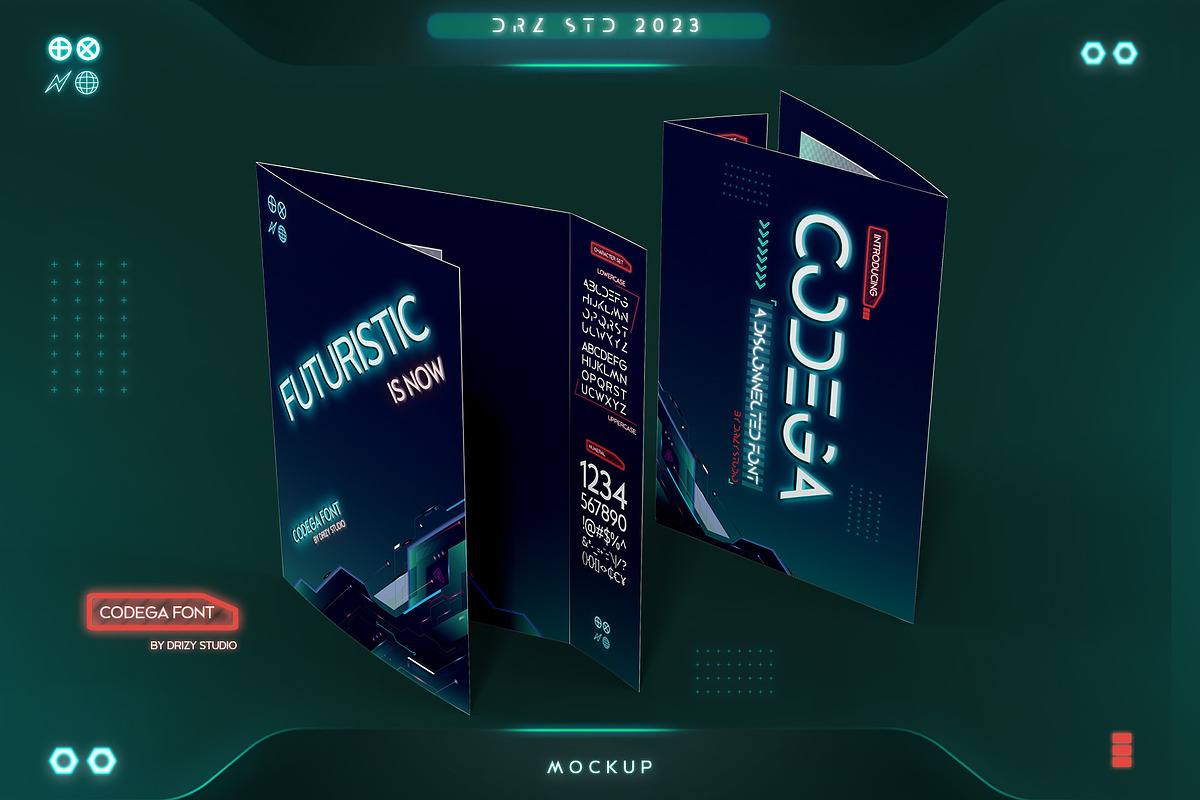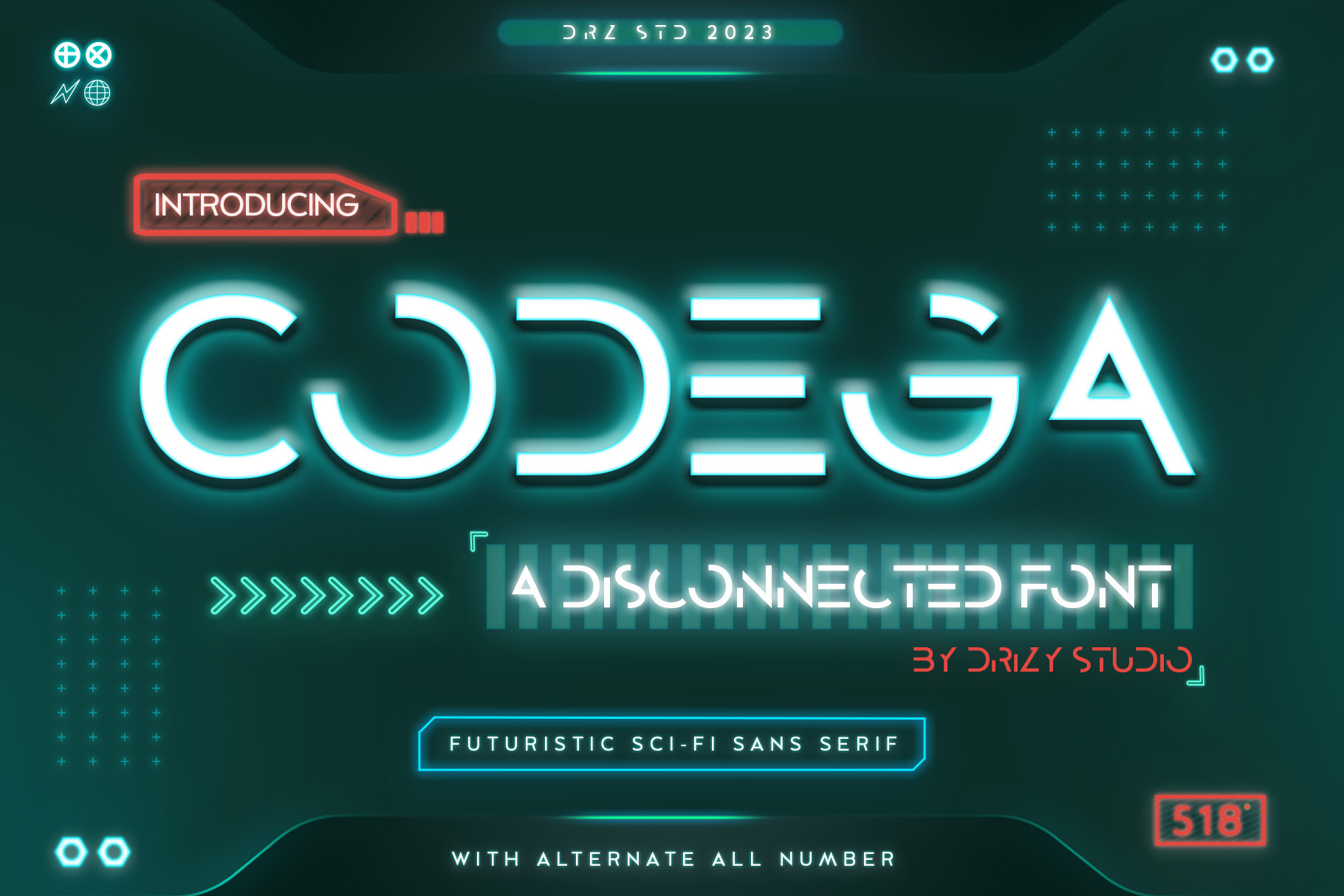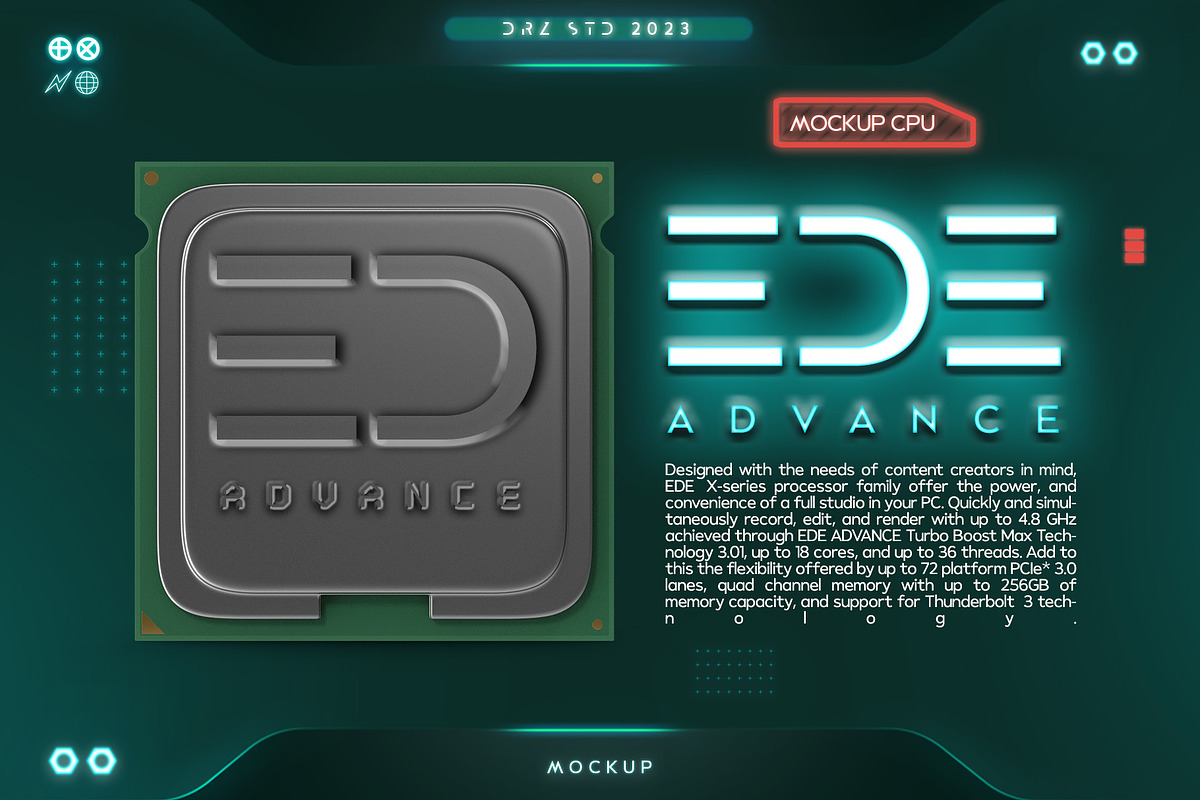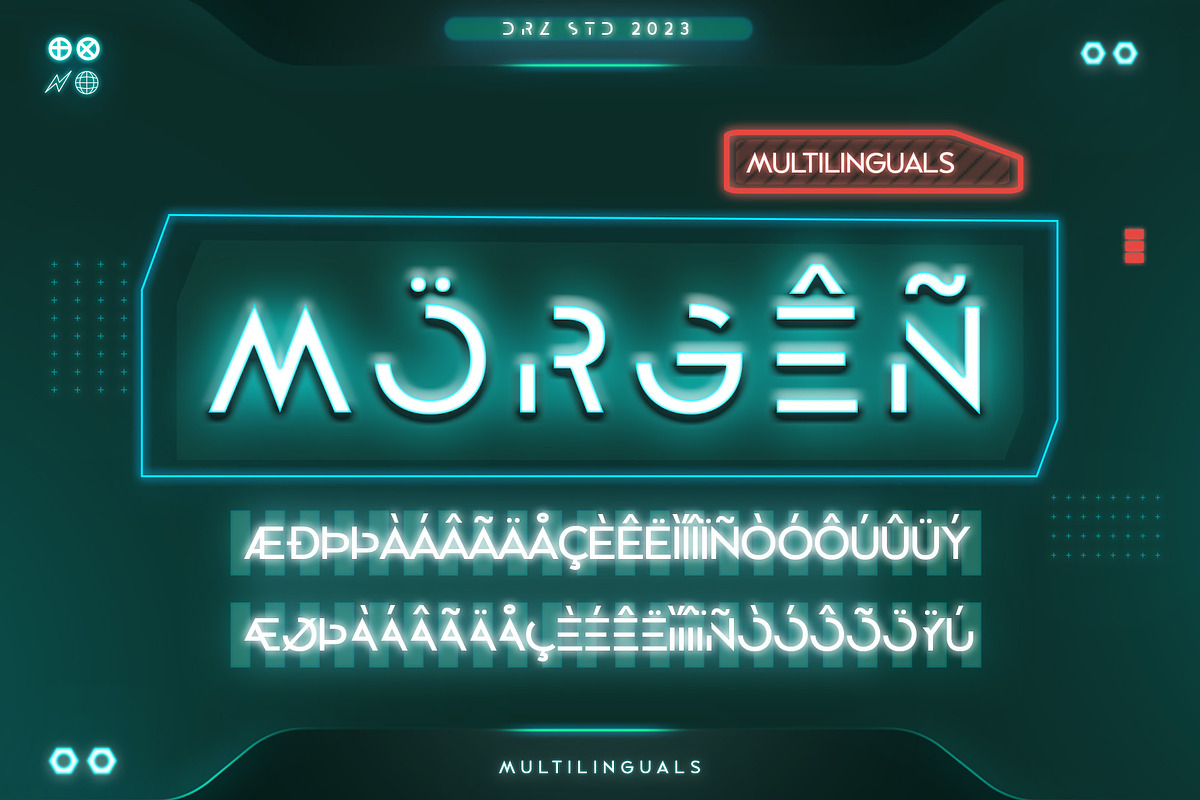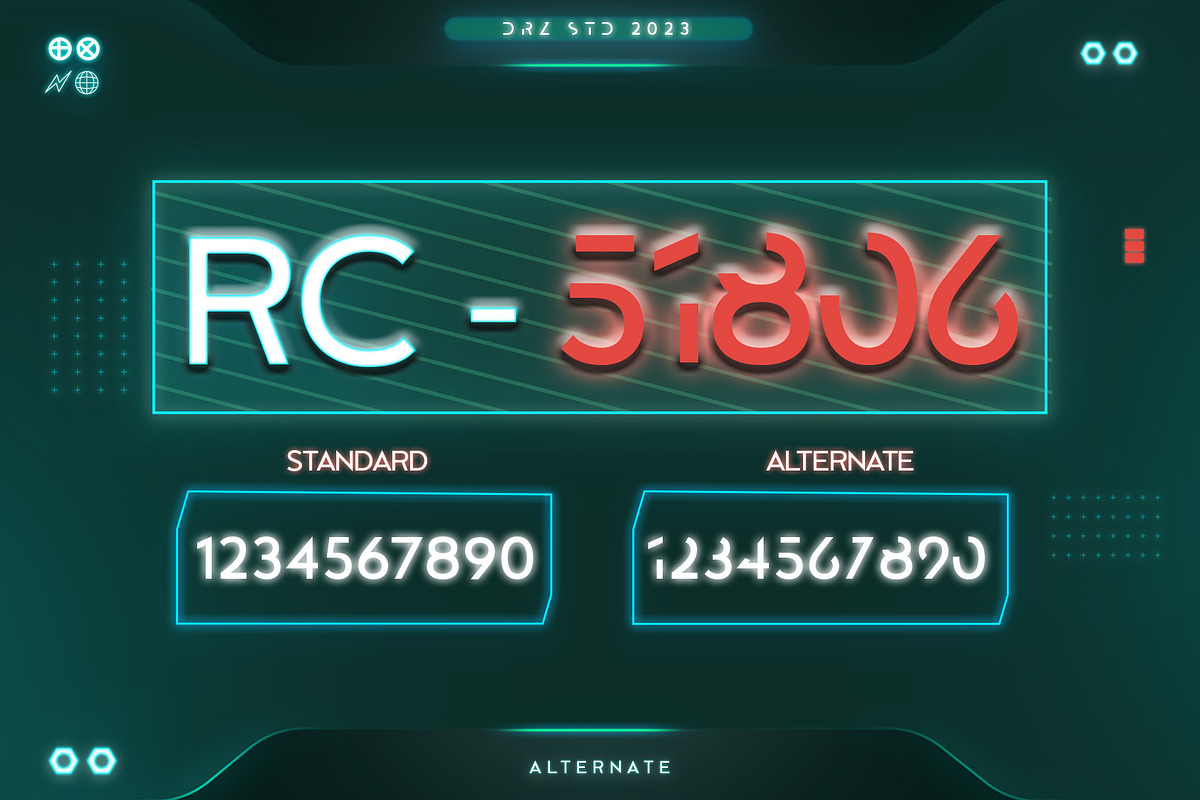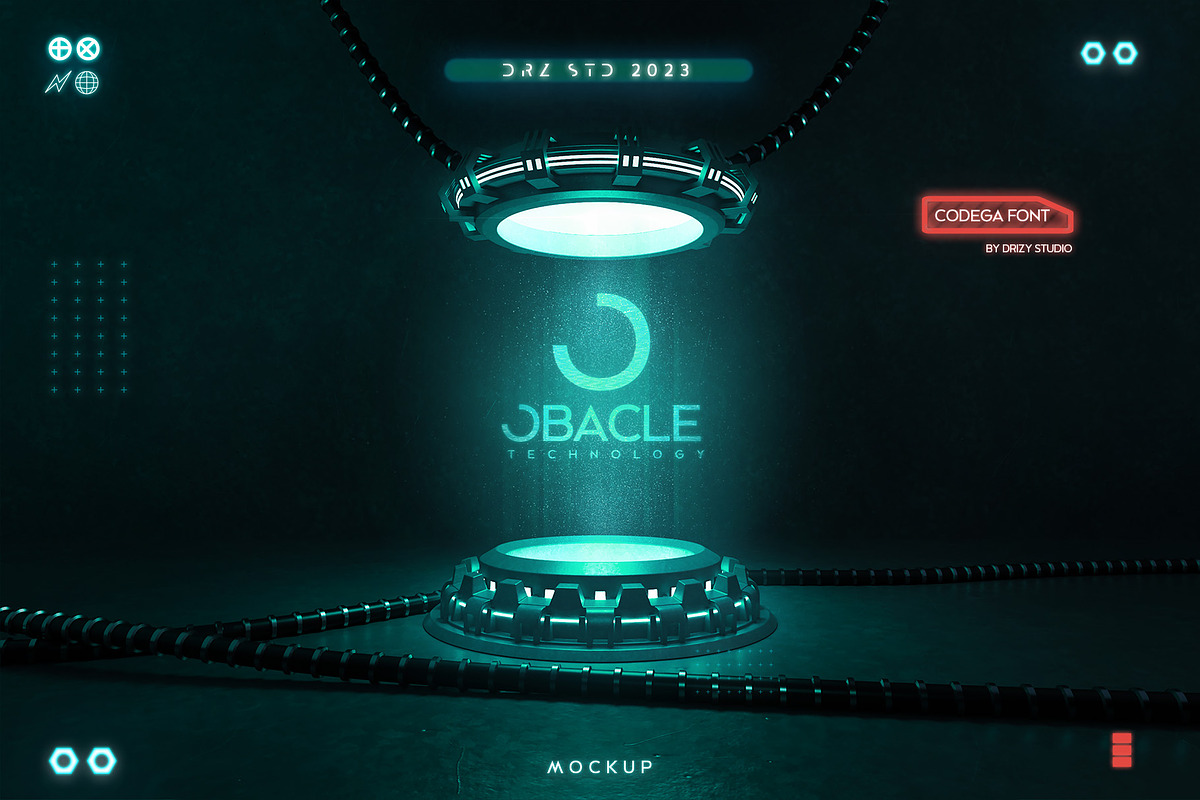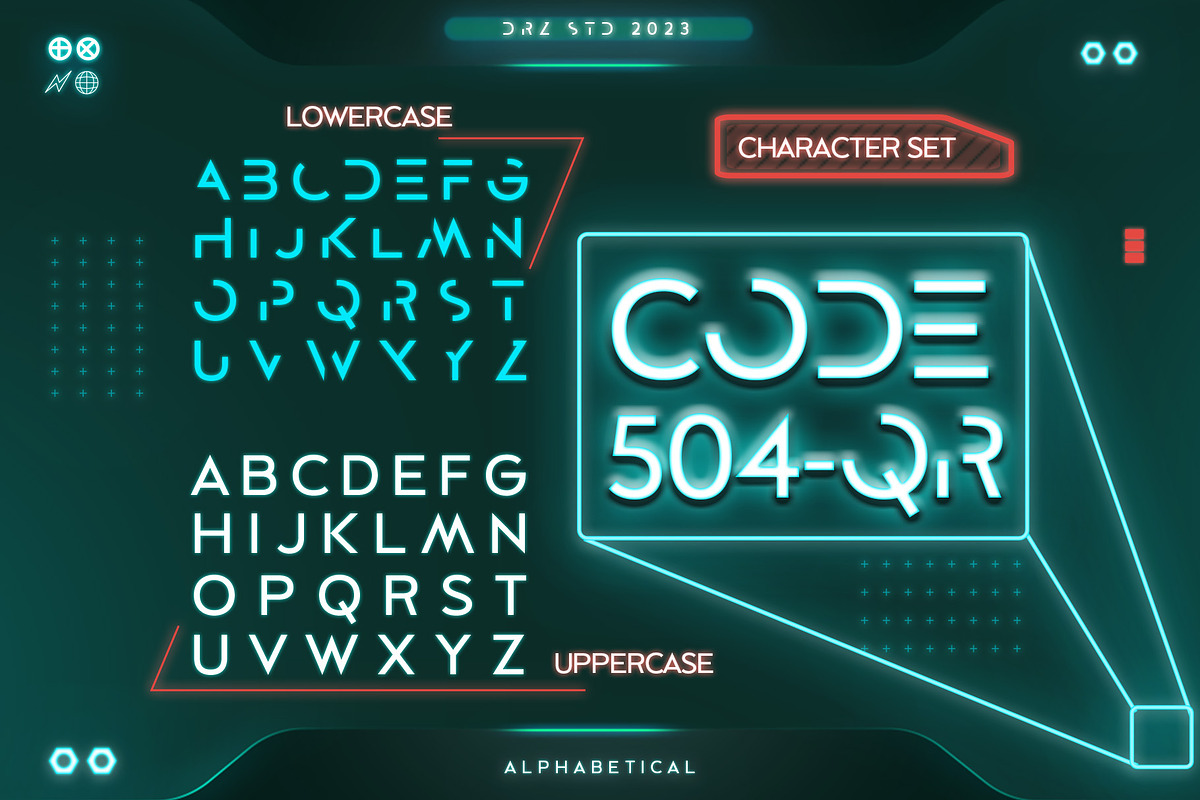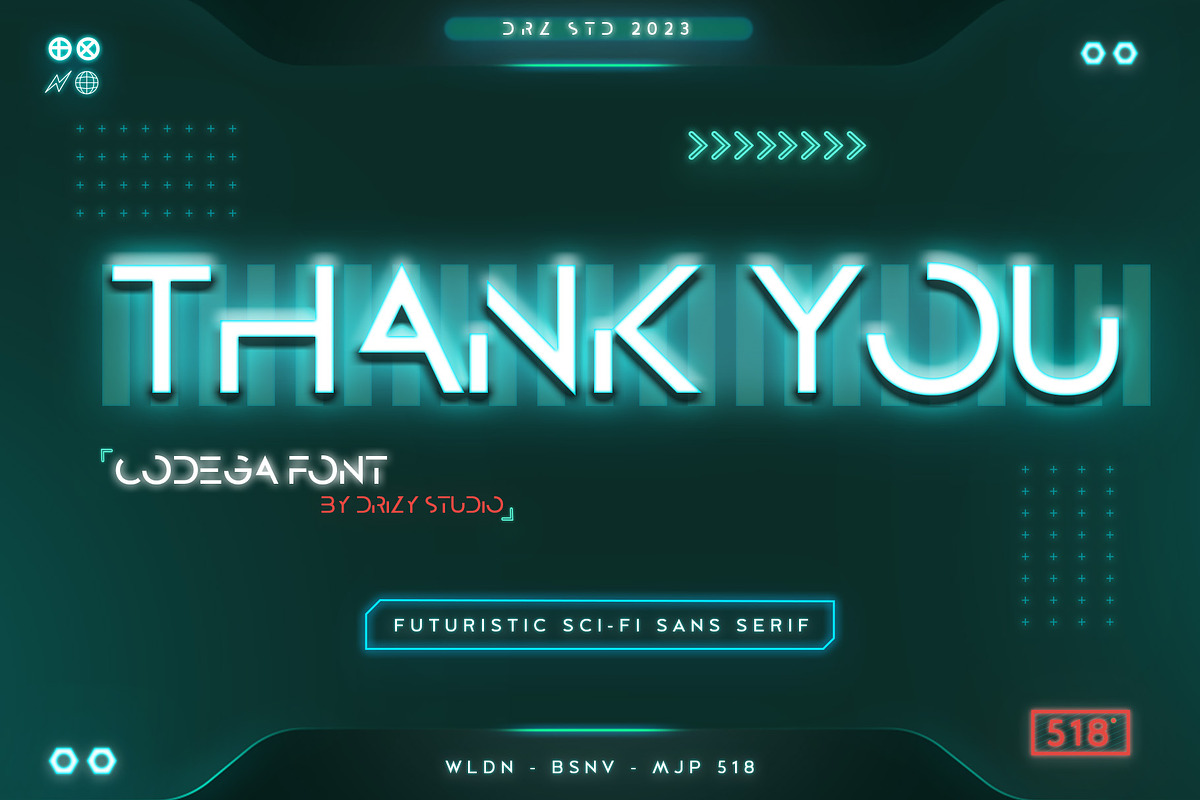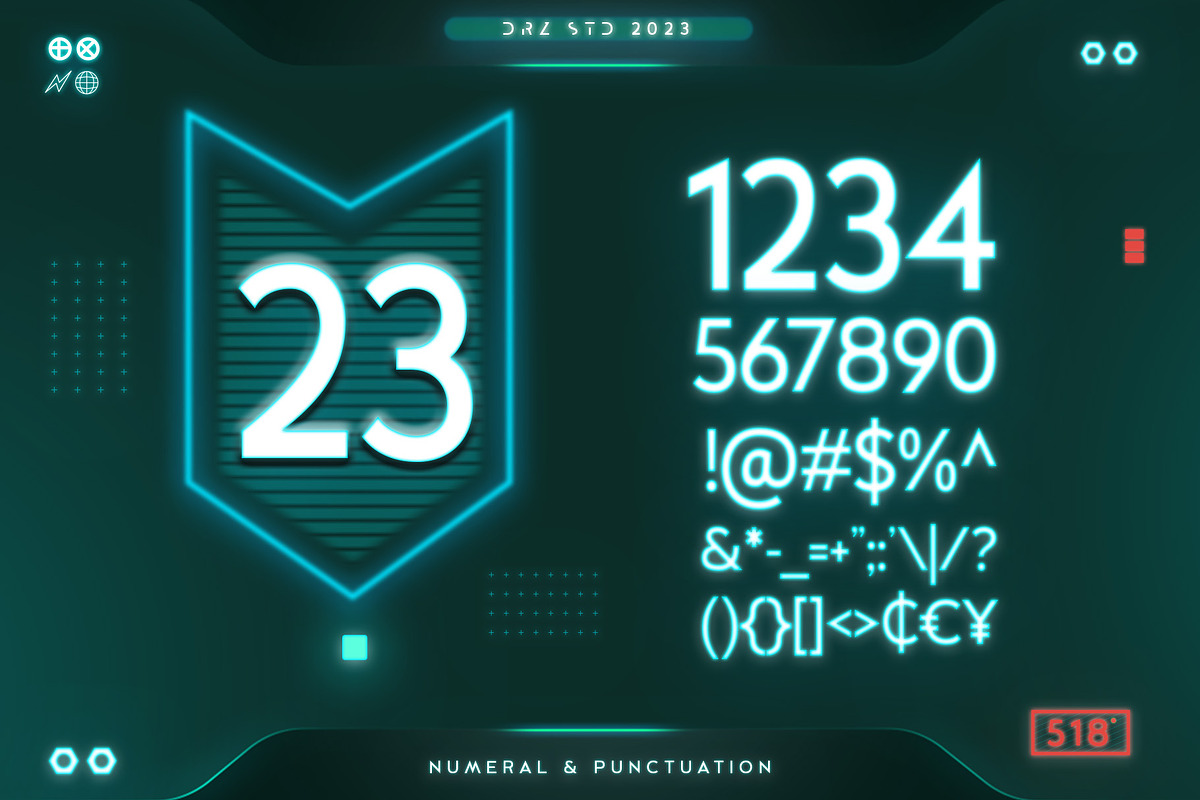
Codega, Sans Serif Disconnected Font
Codega – Sans Serif Disconnected Font Codega is a display sans serif font with disconnected styling from Drizy Studio. Offering all the styles you need for classic or modern theme projects. Codega features:
Spice up your project with this unique modern disconnected typeface!